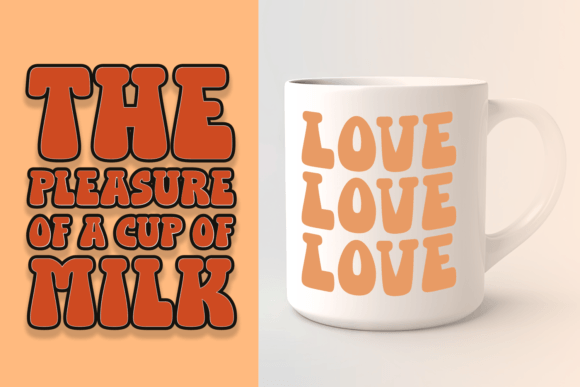
Introduction to Retro Great Font
Remember that moment when you stumble upon the perfect design element, and your creative project suddenly comes to life? It’s like a breath of fresh air, isn’t it? For designers, finding that one special font can be a game-changer. And that’s exactly what we’re about to share with you – the Retro Great Font, a charming display font that’s sure to bring a smile to your design.
With its cute and chubby characters, the Retro Great Font is an incredible asset to any design library. Its friendly look and generous thickness make it an ideal choice for adding a touch of whimsy to your next creative project. Whether you’re working on a branding project, a social media graphic, or a blog post, this font is sure to bring a playful vibe to your design.
Key Features of Retro Great Font
- Unique Vintage Style: The Retro Great Font features a distinctive vintage aesthetic, perfect for adding a touch of nostalgia to your creative project.
- High-Quality Design Resource: This font is a high-quality design resource, ideal for designers and artists looking for a reliable and versatile font.
- Perfect for Creative Projects: The Retro Great Font is perfect for creative projects, including graphic design, web design, and digital art.
Honest Review: Retro Great Font
As a designer, I’m always on the lookout for unique and high-quality design resources to elevate my creative projects. The Retro Great Font caught my eye, and I’m excited to share my honest review.
- ✨ Unique retro aesthetic that adds a touch of nostalgia to any design
- ⚠️ Limited character set and font sizes may restrict its use in complex designs
- ⚠️ May not be suitable for modern or minimalist designs due to its retro vibe
Overall, I think the Retro Great Font is a great addition to any designer’s toolkit. While it may have some limitations, its unique aesthetic and high-quality files make it a valuable resource for creative projects. If you’re looking to add a touch of nostalgia to your designs, this font is definitely worth checking out.
Tips for Getting the Most Out of Retro Great Font
For a transparent background, use the font with a white or light-colored background to make the text stand out. You can also pair it with other high-quality fonts for a unique design.
The Retro Great Font is ideal for vintage-themed designs, retro-style posters, and creative projects that require a nostalgic feel. It’s also great for designing business cards, logos, and social media graphics that need a touch of classic style.